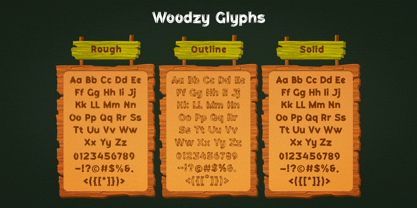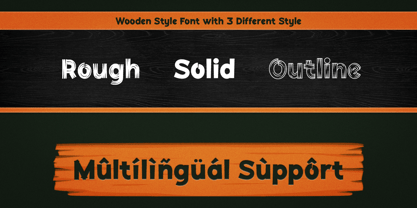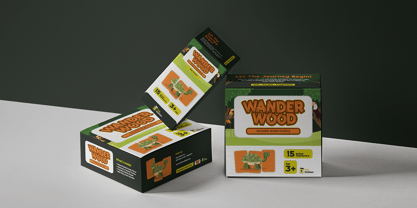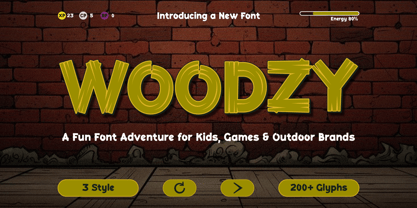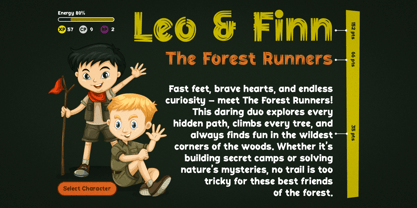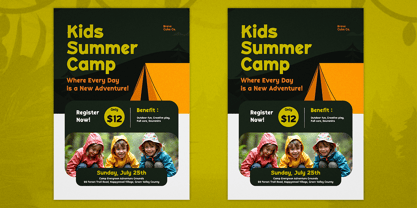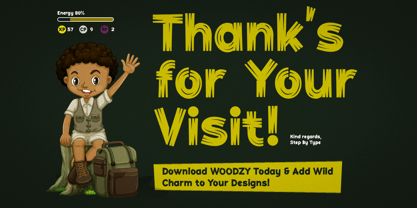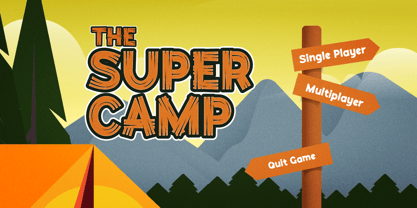
Woodzy
Woodzy – A Fun Font Adventure for Kids, Games & Outdoor Brands brings a playful outdoor spirit to your designs. With rounded edges, quirky details, and bold strokes, this typeface feels alive—like carved letters on a tree or signage in a forest camp.
It’s perfect for projects that need to feel adventurous, nature‑inspired, and kid‑friendly while staying clean and modern.
Style & Energy
• Fun, organic, adventurous
• Wholesome and approachable with a natural vibe
• Strong enough for branding but casual enough for play
Intended Market & Use
• Kids’ games, adventure apps, toy packaging
• Outdoor brands, camping gear, family events
• YouTube gaming channels and playful merchandise
Letterform Structure
• Rounded, slightly uneven strokes for a hand‑crafted feel
• Sans‑serif construction with bold weight
• Highly legible in both display and mid‑size text
Best Use Cases
• Logos and mascots for kids’ products
• Game UIs, adventure titles, and fun educational content
• Posters, social media graphics, and packaging for outdoor snacks or toys
Bring your designs to life with Woodzy’s sense of adventure.
Whether you’re branding a kids’ nature camp, creating titles for a family‑friendly game, or designing labels for outdoor products, Woodzy – A Fun Font Adventure for Kids, Games & Outdoor Brands gives your work a bold and memorable personality.
✅ Adventure‑Ready – Perfect for projects that need an outdoor vibe
✅ Kid‑Friendly & Playful – Friendly curves and charming quirks
✅ Versatile Use – Works in branding, games, packaging, and digital content
✅ Hand‑Crafted Feel – Organic strokes with modern readability
Step into a world of fun and creativity with Woodzy – A Fun Font Adventure for Kids, Games & Outdoor Brands.